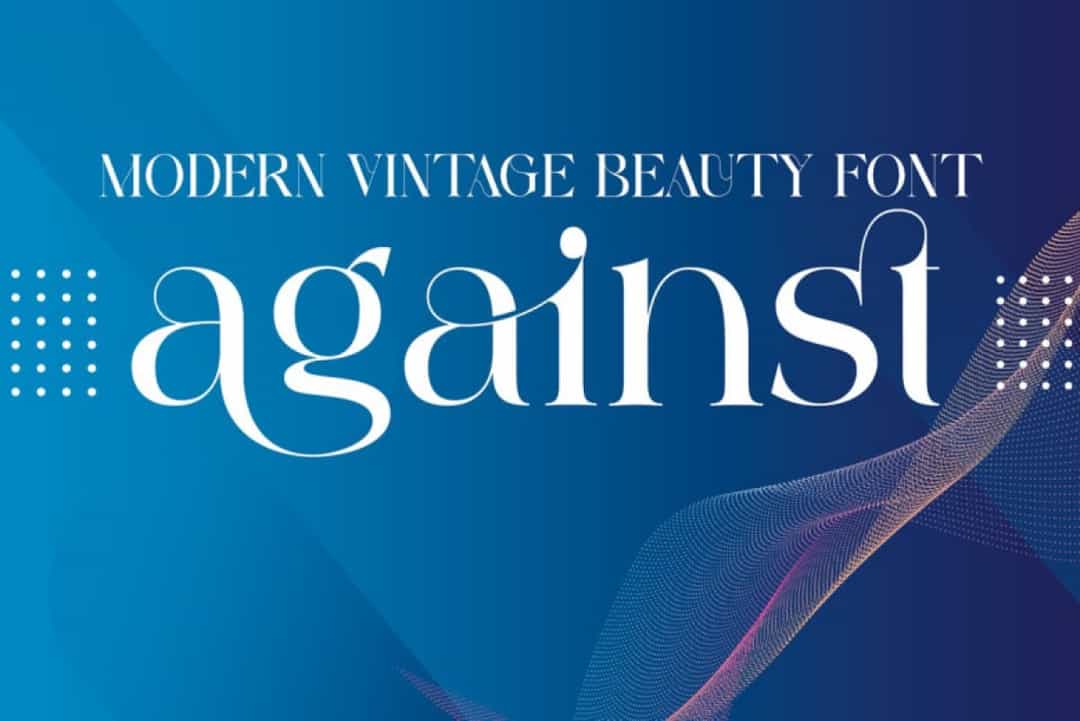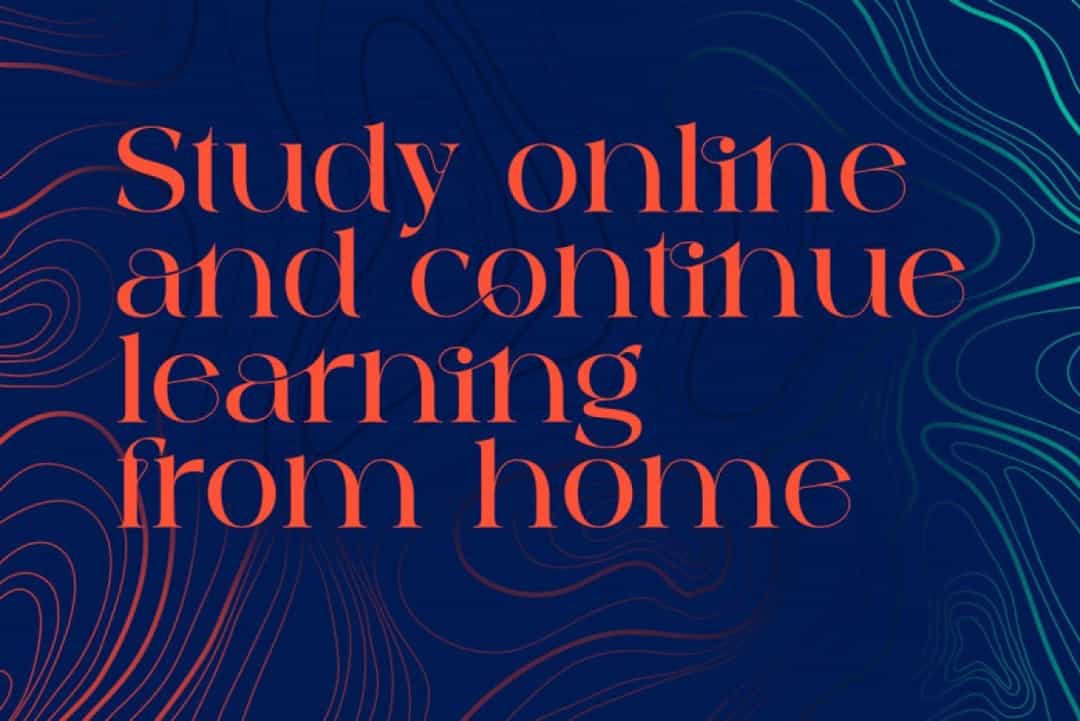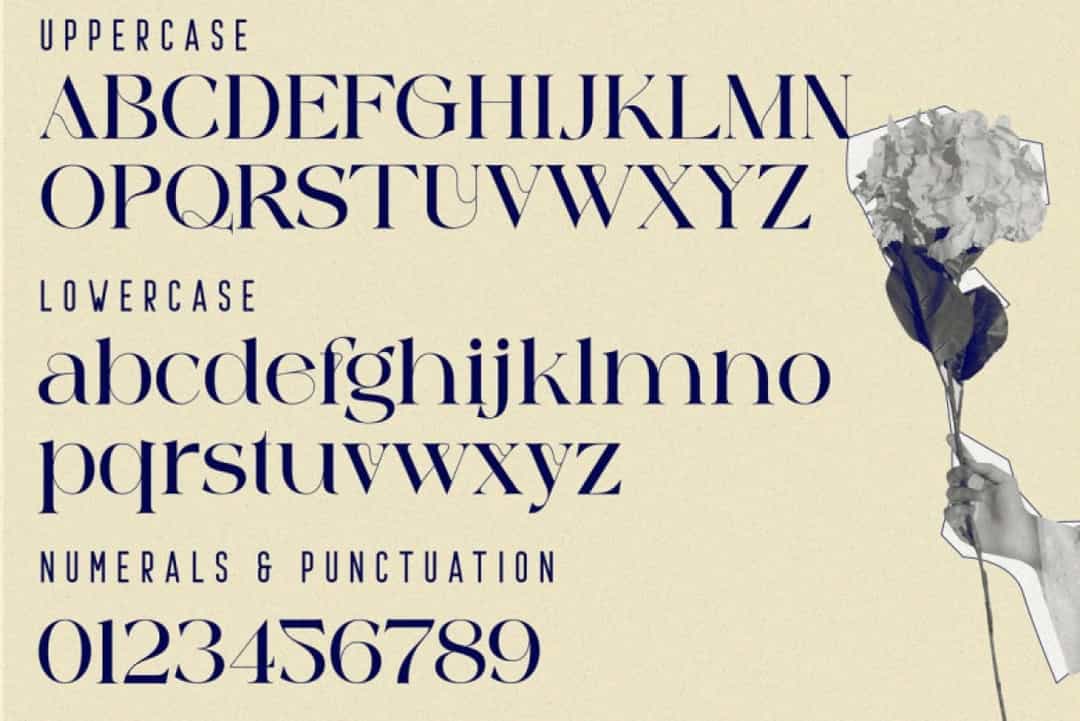
The Against Vintage Serif font is an elegant and distinctive typeface ideal for creating logos and brands. This classy serif font offers both contemporary and nostalgic aesthetics and is perfectly suitable for logos, magazines, social media campaigns and any form of communication.